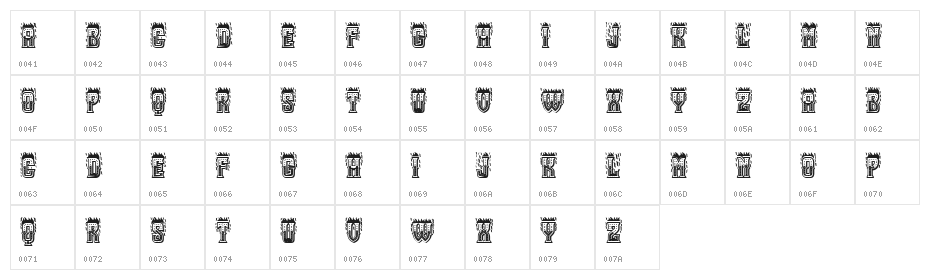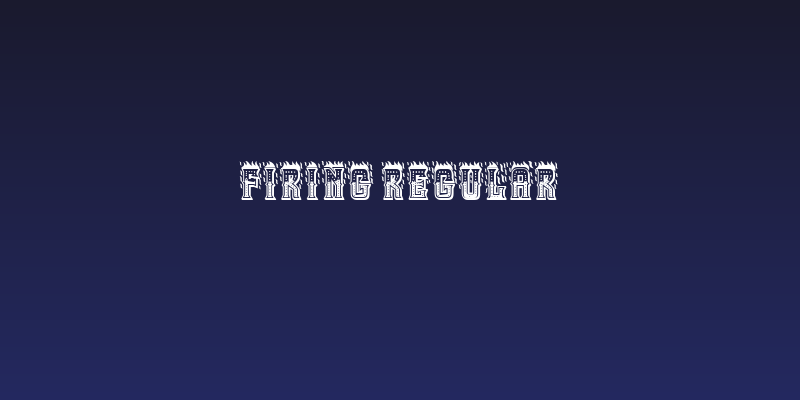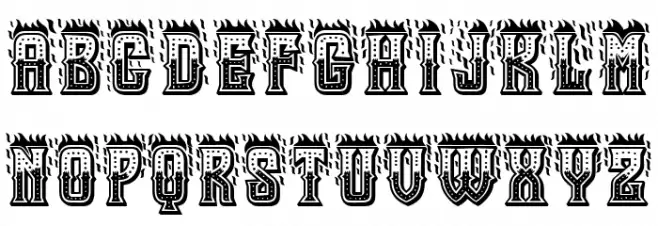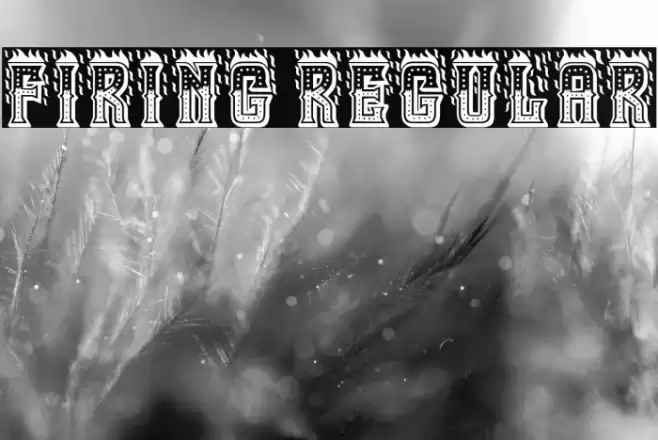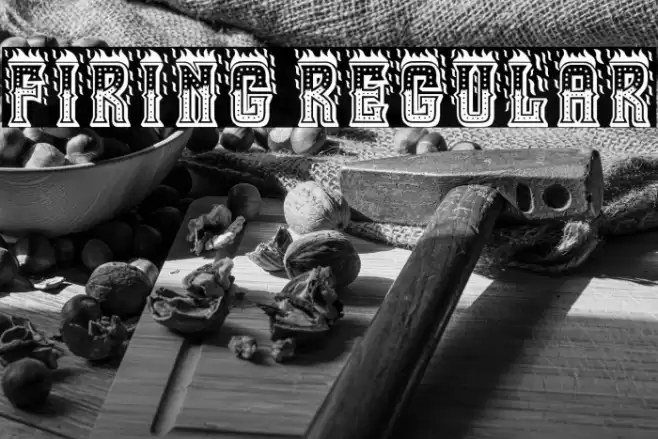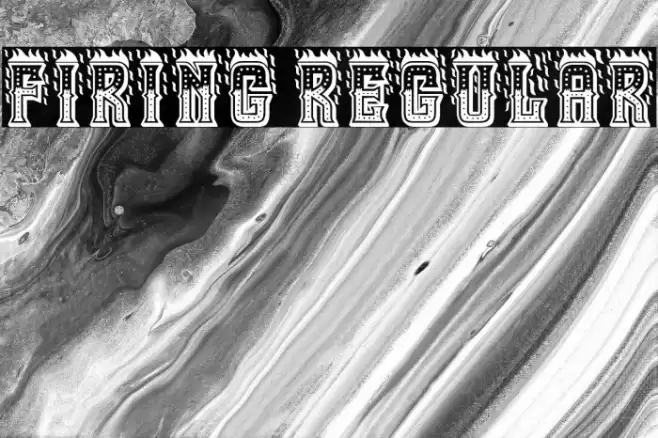
Firing Regular Font
Firing Regular Description
This font features a bold and decorative style with intricate patterns and a unique flame-like design extending from the top of each character. The letters are outlined with a thick border, enhancing their bold appearance. The interior of each character is filled with detailed line work, adding depth and texture. The overall design is eye-catching and dynamic, making it suitable for projects that require a strong visual impact. The uppercase letters are consistent in style, with a uniform height and width, contributing to a cohesive look.
| Proposed Projects | Ideal for posters, album covers, event flyers, and branding that requires a striking and memorable typeface. |